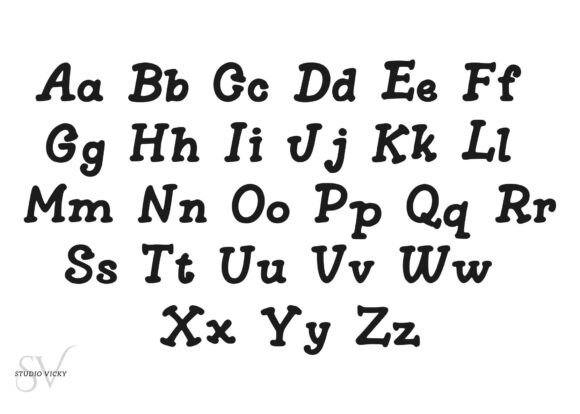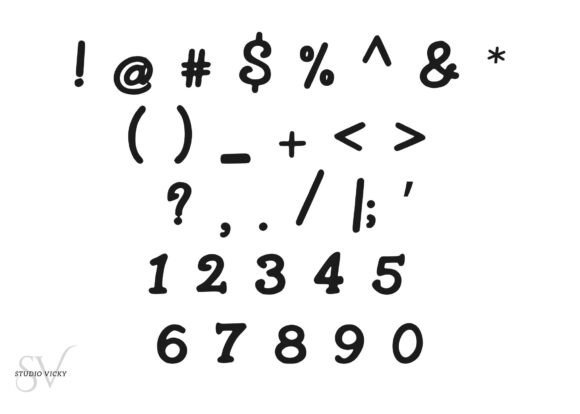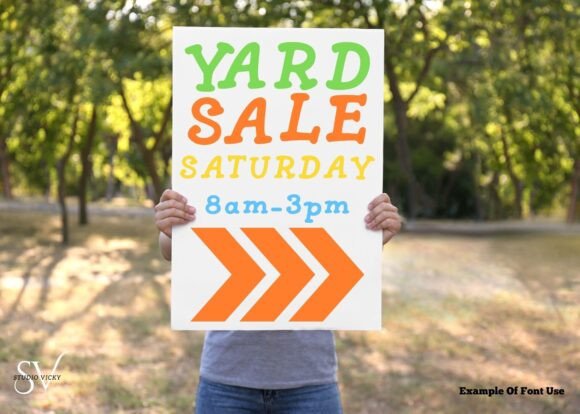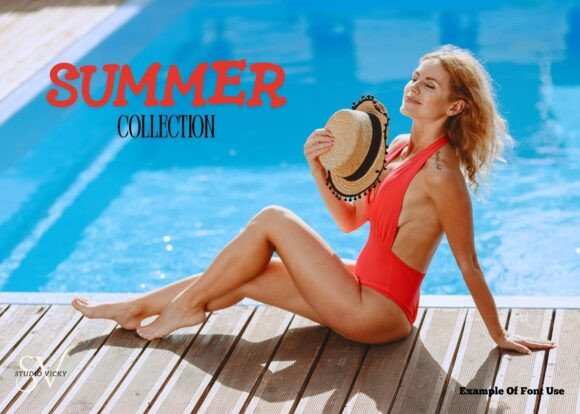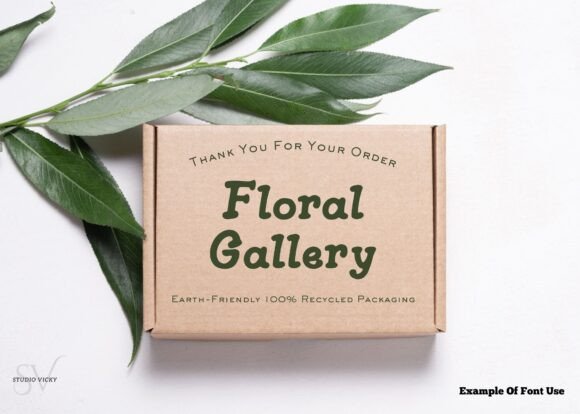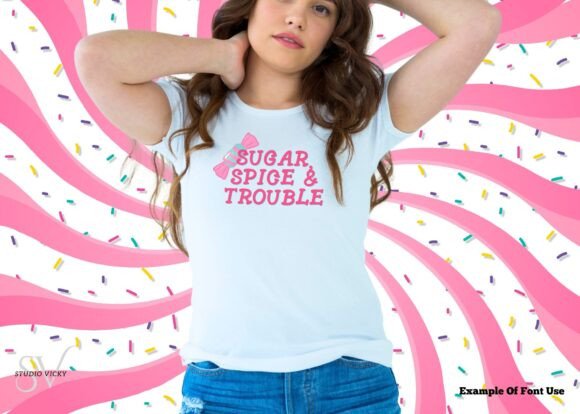
Discover the Power of High Marks Font: A Decorative Delight for Makers and Designers
I’ll never forget the time I was working on a branding project for a client’s boutique coffee shop. I had spent hours perfecting the logo design, but something was missing. The font I had chosen just wasn’t quite right – it was either too bland or too over-the-top. That’s when I stumbled upon High Marks Font, and it instantly elevated my design to the next level. If you’re a designer, crafter, or creative hobbyist looking for a versatile font to enhance your projects, you’re in the right place!
An Honest Review of High Marks Font
- ✨ Versatility: High Marks Font is a decorative font that can be used for a wide range of projects, from quotes and branding to t-shirts, mugs, websites, blogs, logos, social media, invitations, and more.
- ✅ Ease of use: The font is easy to read and works well in both digital and print formats.
- 💡 Creativity booster: The unique and stylish design of High Marks Font adds a touch of personality to any project, making it perfect for designers and creatives looking to stand out.
While High Marks Font is an excellent choice for many projects, there are a few things to keep in mind:
- ⚠️ Legibility at small sizes: Like many decorative fonts, High Marks Font may not be the best choice for very small text sizes, as some details may get lost.
- 🤔 Overuse: While the font is beautiful, using it excessively can make your design look cluttered. Balance is key.
The Backstory Behind High Marks Font
High Marks Font was created with the maker and designer in mind. The designer behind this beautiful font wanted to create something that would inspire creativity and add a personal touch to any project. With its unique and stylish design, High Marks Font is sure to become a favorite among designers and creatives.
Q: What makes High Marks Font unique?
A: High Marks Font stands out due to its decorative and stylish design, making it perfect for adding a personal touch to various projects.
Q: Is High Marks Font suitable for body text?
A: While High Marks Font is beautiful, it’s primarily designed for headlines and decorative text. For body text, a more readable font might be a better choice.